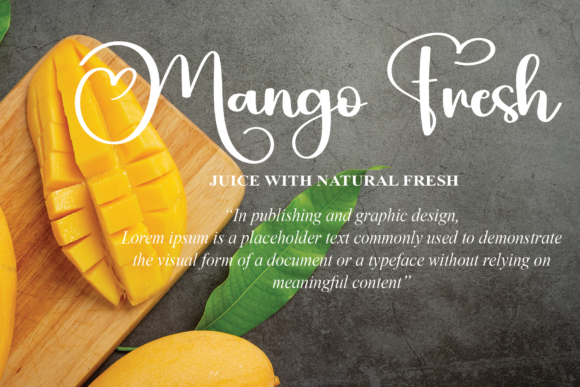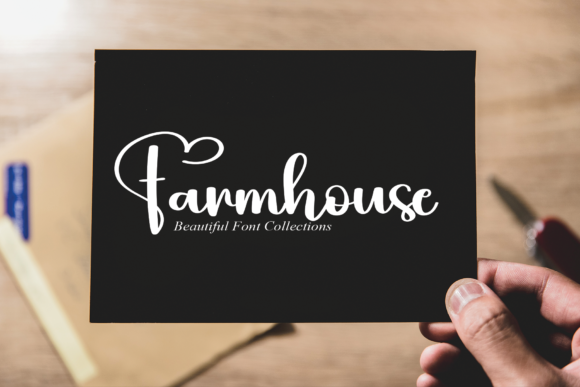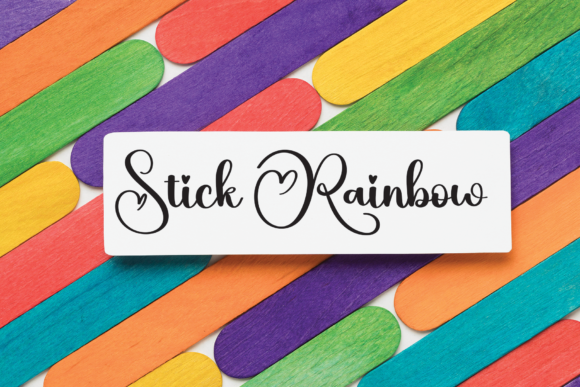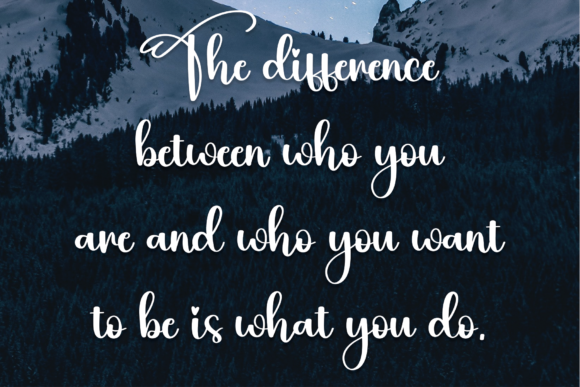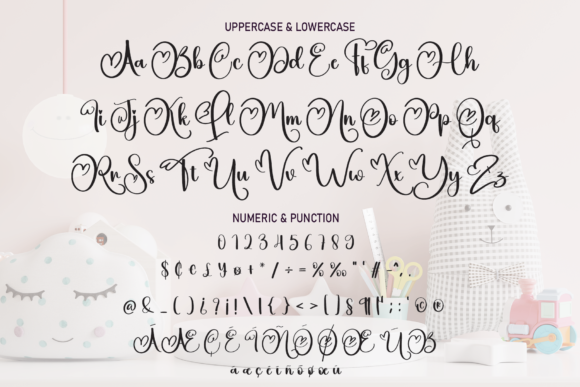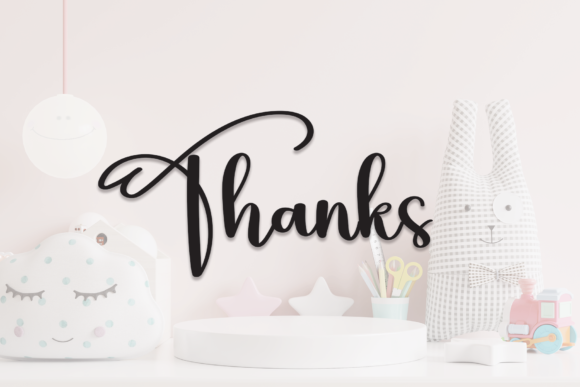
Quilt Font
About Quilt Font
This font, inspired by modern calligraphy, takes romance to an entirely new level with its heart tails and playful design. Going beyond conventional script fonts, it features hearts as dots on characters like “i” and “j,” adding a delightful touch to each letter. Your messages will transform into something truly super cute, making this font a perfect choice for a variety of creative projects, including posters, greeting cards, t-shirts, branding materials, quotes, and more.
The modern calligraphy influence in this font brings a contemporary and stylish feel to your text. The addition of heart tails further enhances the romantic and whimsical nature of the design, making it a standout choice for projects that aim to convey emotions with a touch of playfulness.
The inclusion of hearts for dots on characters like “i” and “j” adds an extra layer of sweetness to the font. This thoughtful detail gives your text a unique and charming character, making it perfect for expressing love, affection, or any sentiments that benefit from an adorable and cute presentation.
Posters adorned with this font become visually captivating and emotionally resonant. The modern calligraphy and heart-infused design add an artistic and romantic quality to your messages, making them not only informative but also engaging and memorable. Whether you’re promoting an event or sharing an inspirational message, this font enhances the overall impact of your poster designs.
Greeting cards take on a whole new level of charm with the heart-tailed characters of this font. Whether you’re creating cards for birthdays, anniversaries, or special occasions, the font’s unique design adds a delightful touch, making your cards stand out and leaving a lasting impression on the recipient.
T-shirts become a canvas for creativity with the inclusion of this font. Whether you’re designing apparel for a fun and casual look or aiming for a fashion statement that exudes charm, the font’s playful design ensures that your text becomes a focal point, turning ordinary garments into stylish and cute fashion statements.
Branding materials acquire a distinctive and memorable identity with the addition of this font. From logos to promotional materials, the font’s unique design elements contribute to a brand image that is not only professional but also infused with a touch of cuteness. It’s a perfect choice for businesses that want to convey a warm and inviting personality.
Quotes gain a new level of expressiveness with this font. Whether you’re sharing motivational messages or heartfelt sentiments, the cute and playful design enhances the emotional impact of your words. It’s a font that not only communicates the message effectively but also does so with a charming and adorable flair.
In essence, this font with heart tails and dots is a delightful blend of modern calligraphy and romantic playfulness. Its versatility makes it suitable for a wide range of applications, allowing you to infuse cuteness and charm into your creative projects. Let this font be the playful yet stylish element that brings an extra layer of joy to your posters, greeting cards, t-shirts, branding materials, quotes, and any other amazing projects you’re working on.